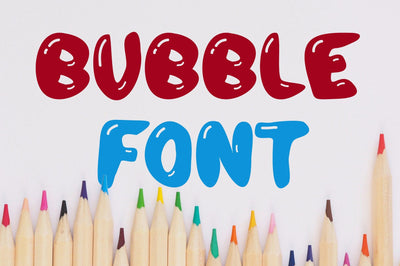
Bubble Letter Candy Font
Bubble Letter is comic type with balloon effect.
Bubbly type for fun events.
Bubbly fonts are associated with fun, playfulness and creativity.
It uses comic jelly bean effect.
Great for posters, logos, packaging, school and education projects, websites, T-Shirts and more.